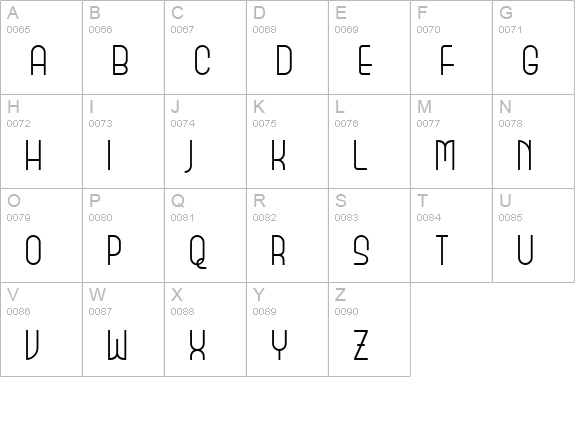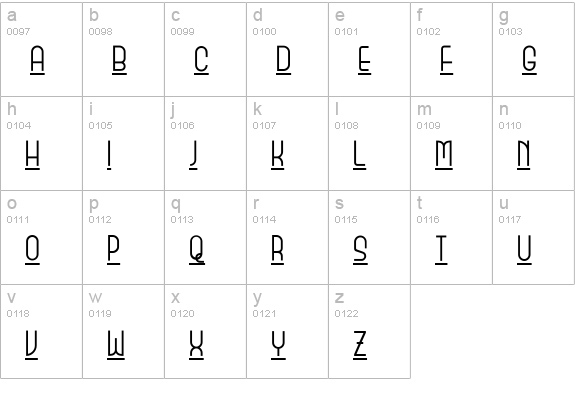
Monicas Salon NF Font Details
Monicas Salon NF font is a charming and elegant typeface that exudes sophistication and style. With its delicate curves and flowing lines, this font is perfect for adding a touch of class to your designs. Whether you're working on invitations, branding, or any other project that requires a touch of elegance, Monicas Salon NF is sure to impress. The best part? Monicas Salon NF font is completely free to download at FontsMarket.com. This means you can elevate your designs without breaking the bank. Don't miss out on this beautiful font that will take your projects to the next level. Download Monicas Salon NF today and add a touch of sophistication to your work.